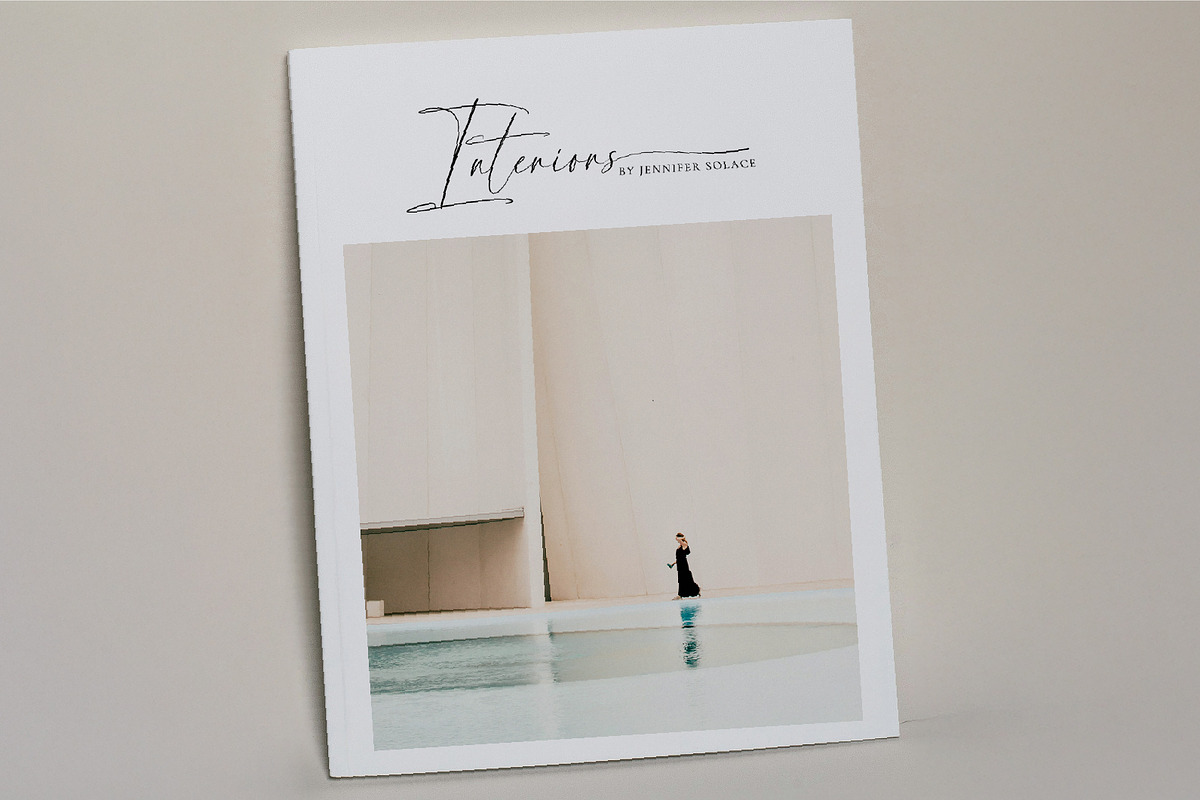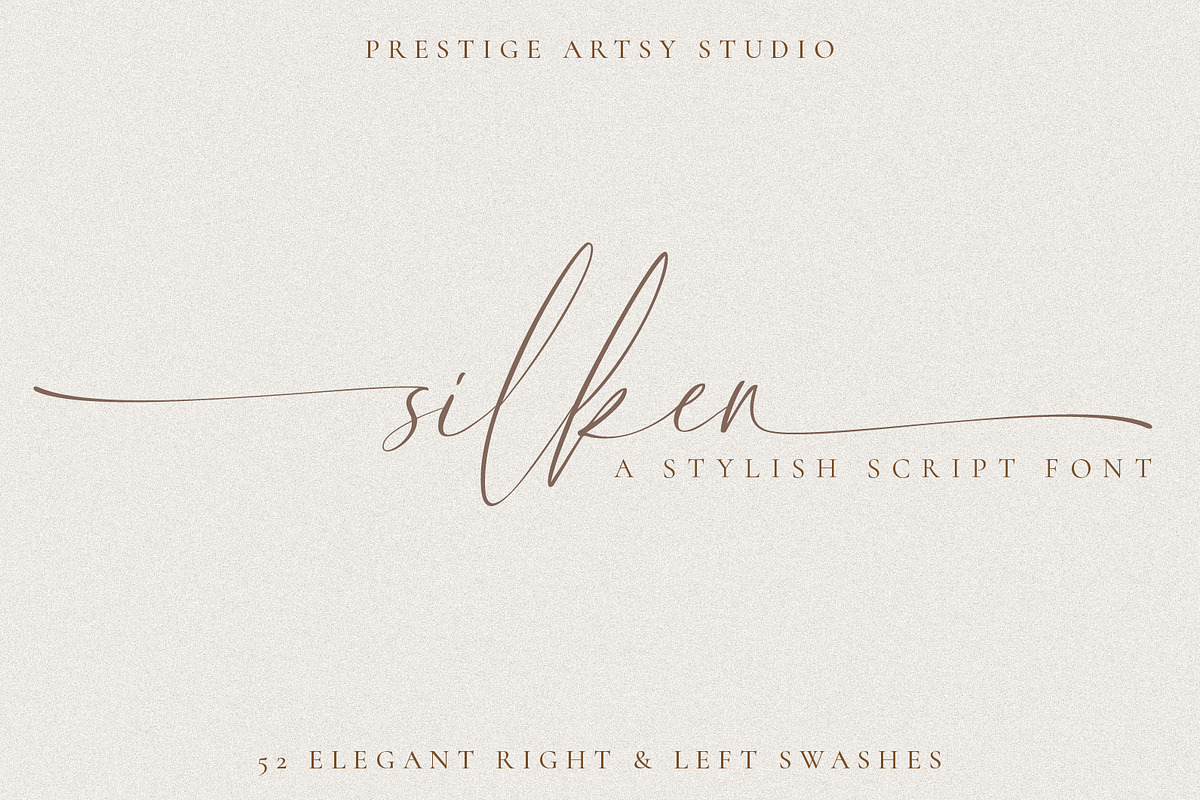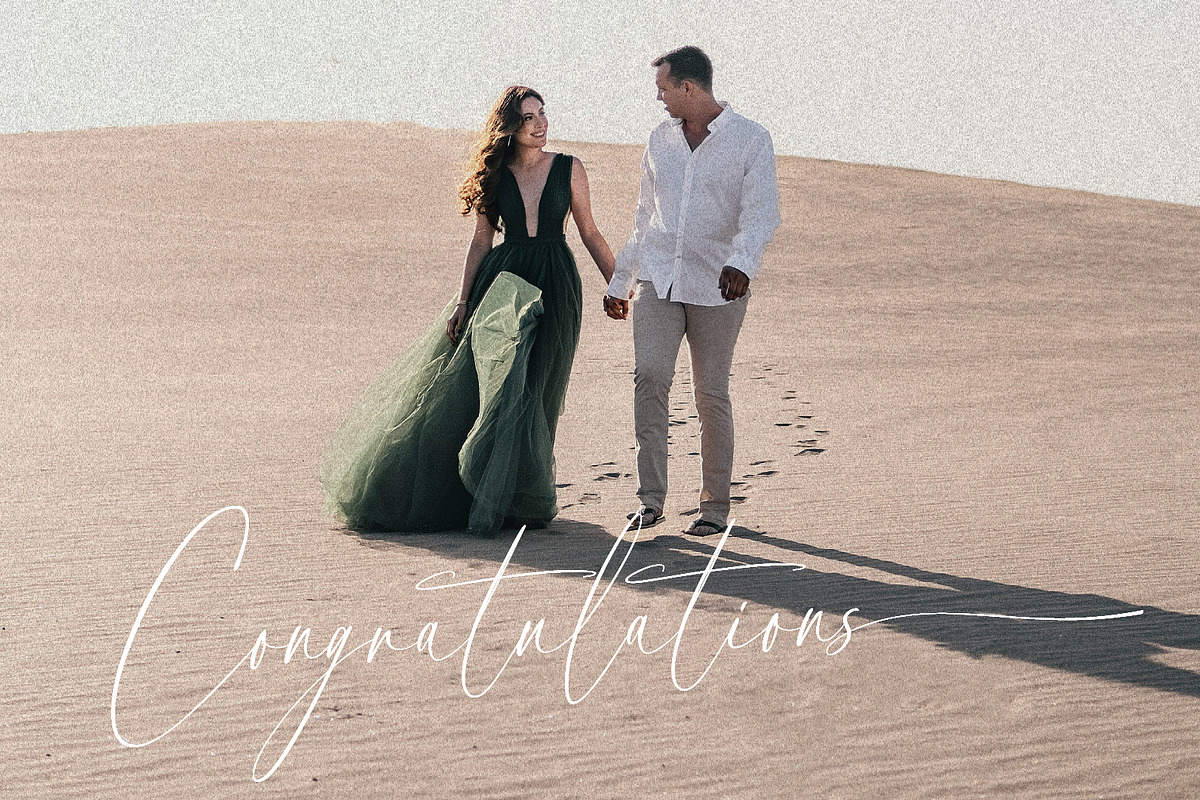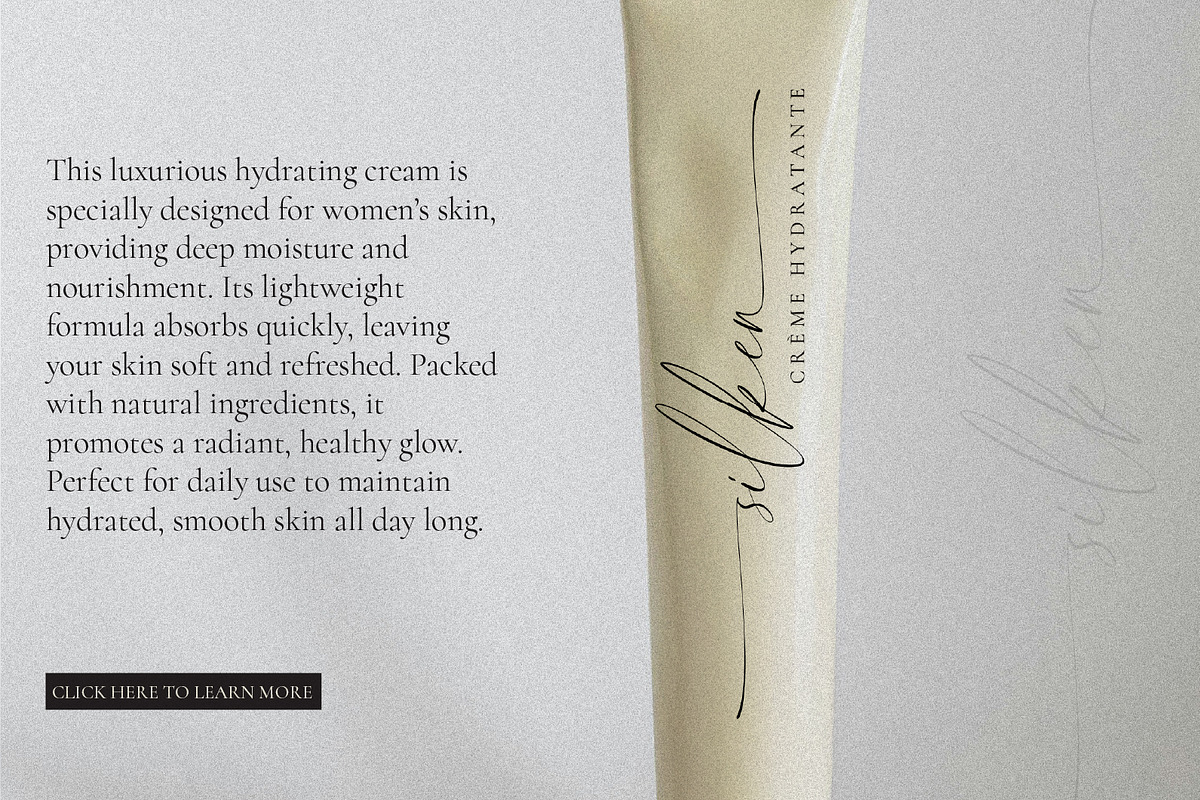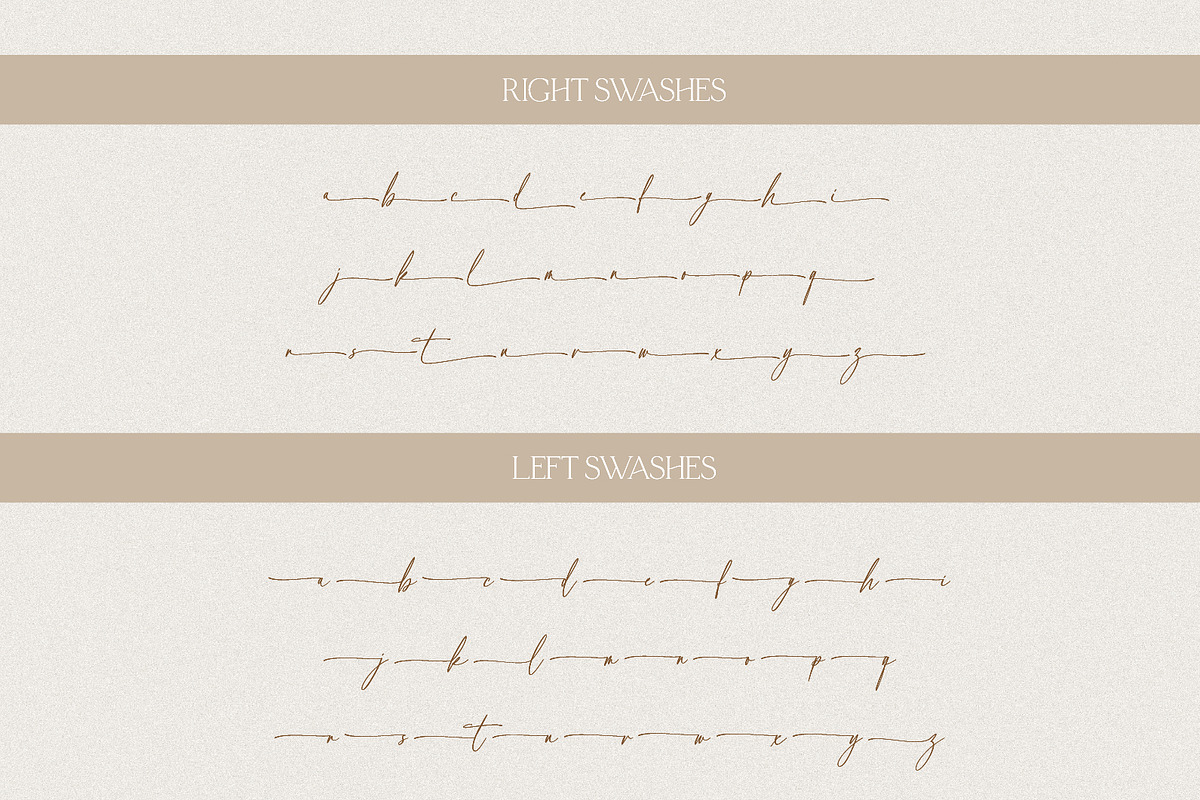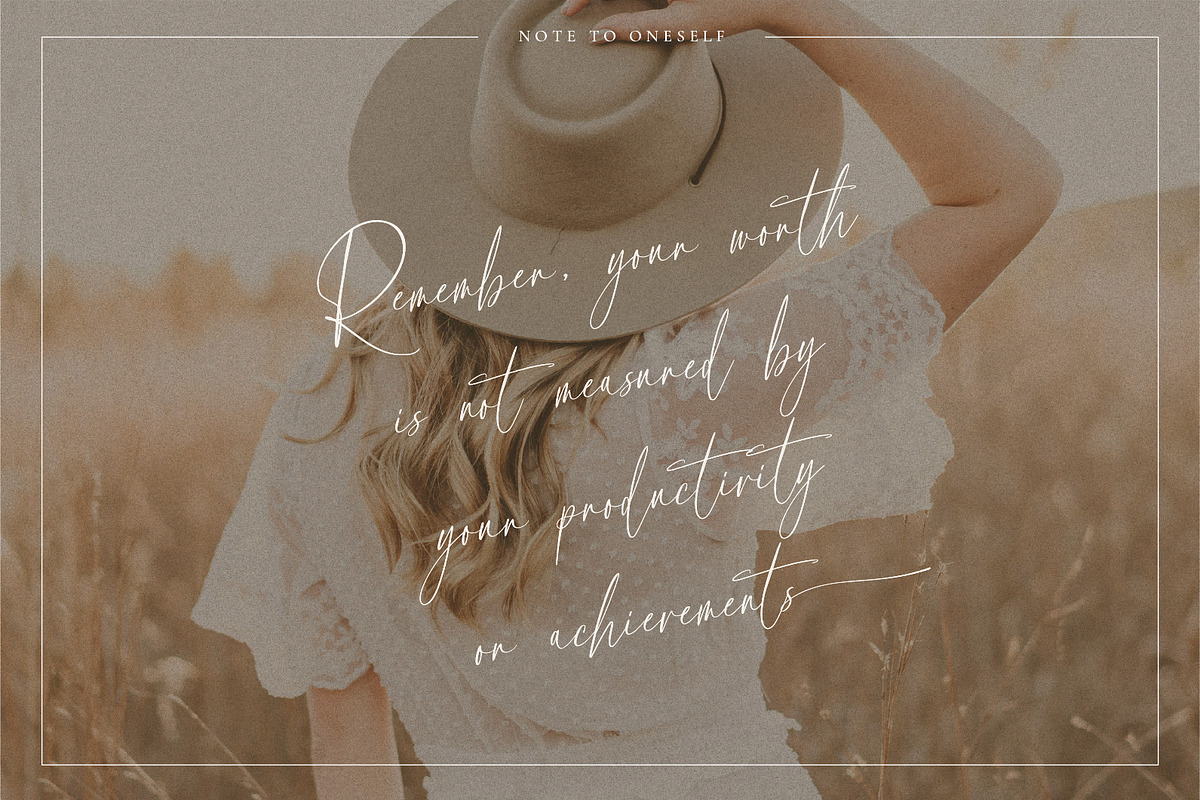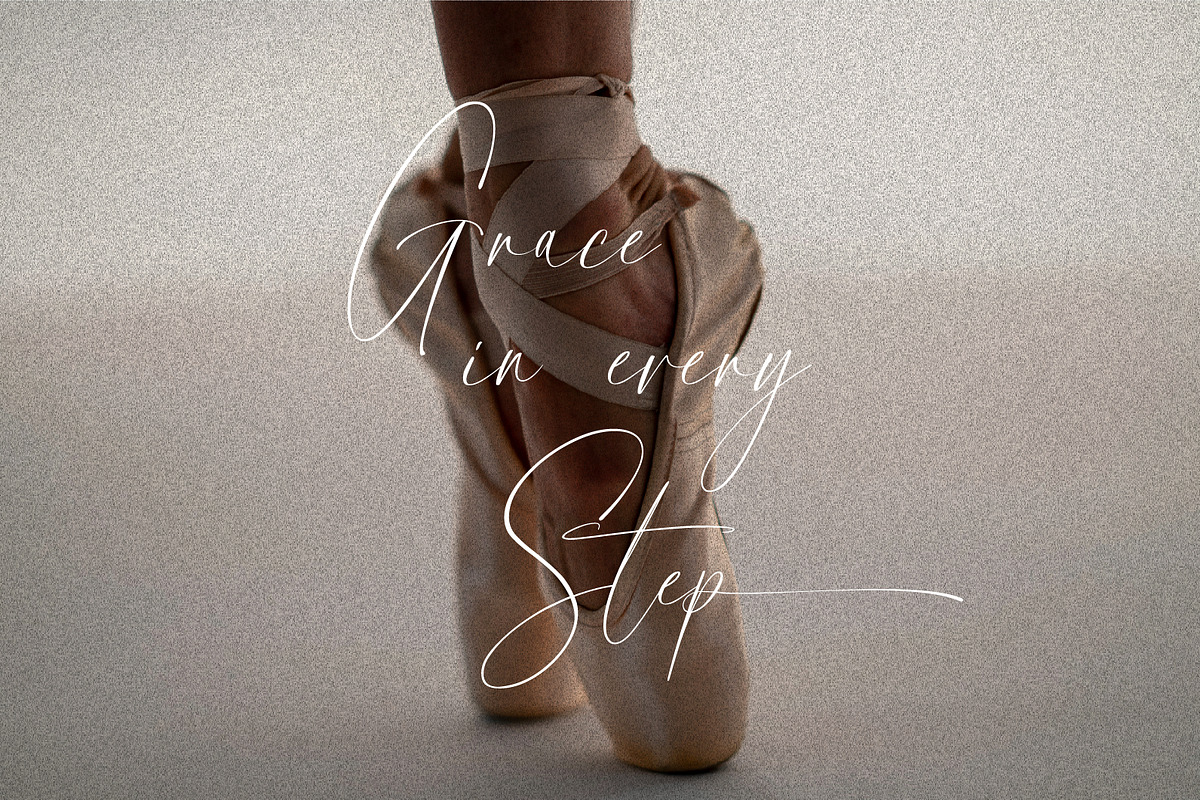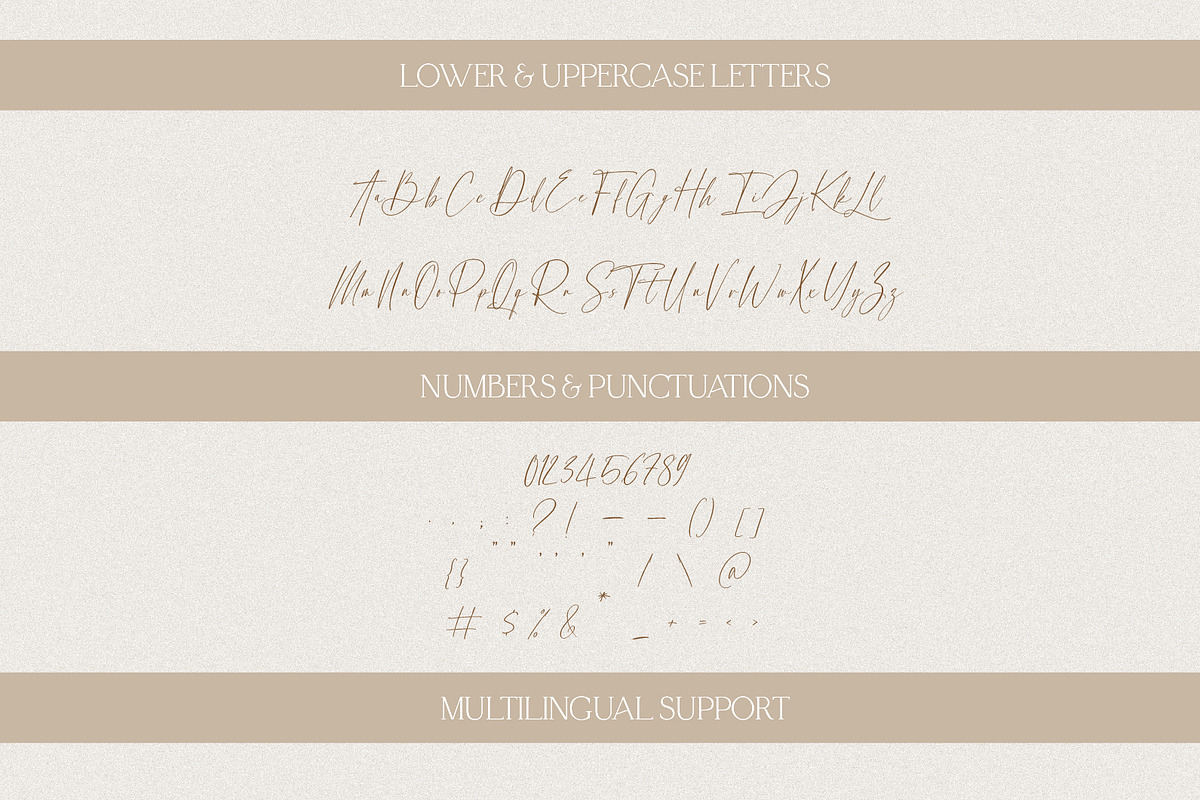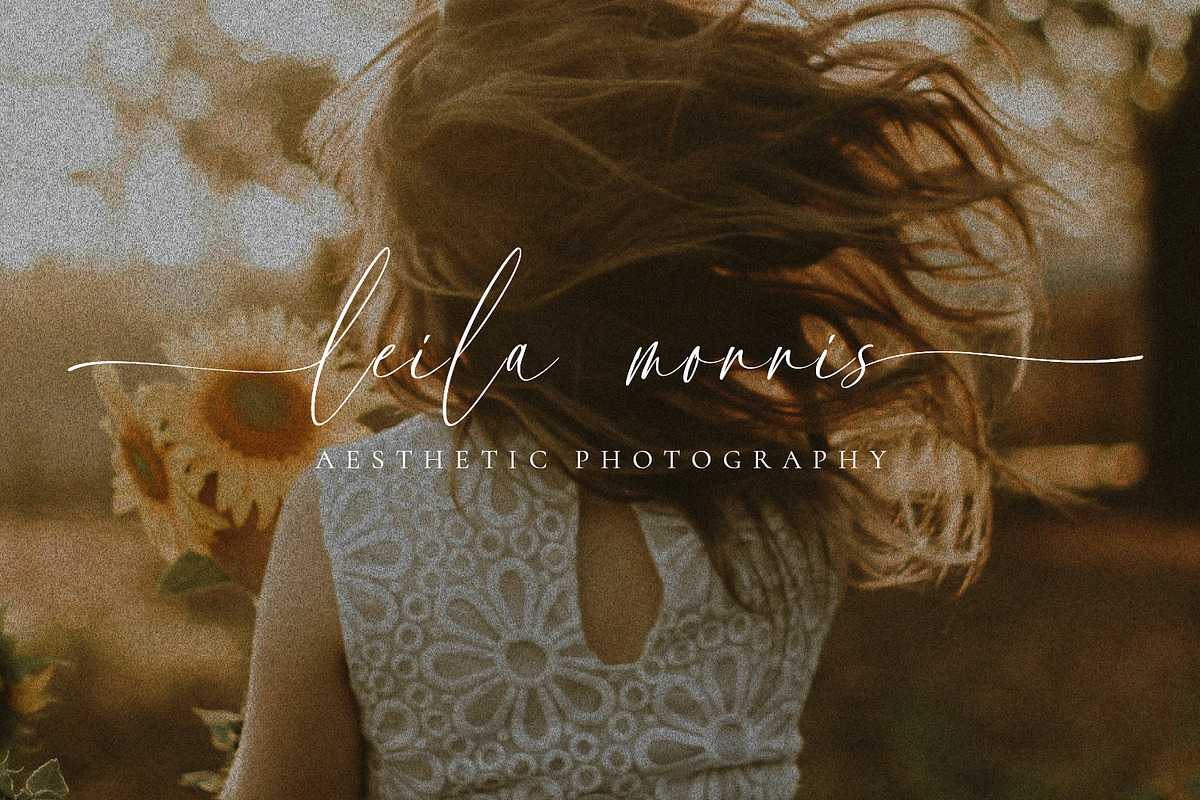
Silken A Stylish Script Font
Silken is a stunning script font that radiates elegance and femininity. With its graceful curves and sophisticated swashes, Silken is perfect for adding a touch of refinement to your designs. Ideal for wedding invitations, branding, social media posts, and more, this font combines timeless beauty with a modern aesthetic, ensuring your projects stand out with charm and style.